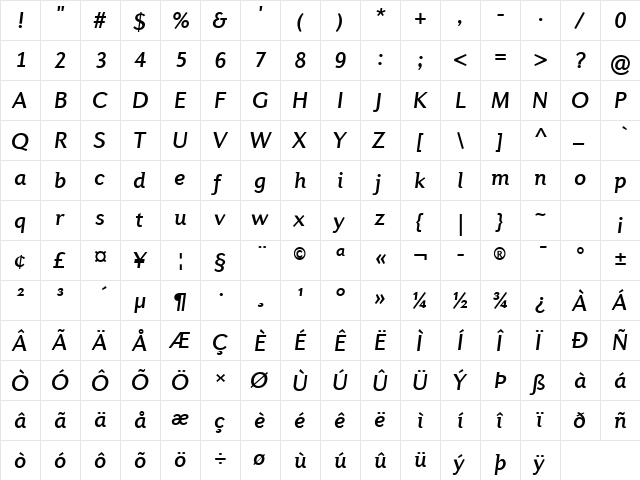
Diverda Sans Com Medium Italic
| Foundry | Linotype GmbH |
| Designer | Daniel Lanz |
Design Context for Diverda Sans Com Typeface
Diverda Sans Com offers clean, dependable letterforms without strong stylistic allegiance, making it a practical choice for designers who need flexibility. Its italic angle brings a sense of urgency and motion to the letterforms.
Pro Tip: Try Diverda Sans Com for annotation and caption copy alongside an upright companion — the contrast in angle creates a dynamic but ordered typographic system.